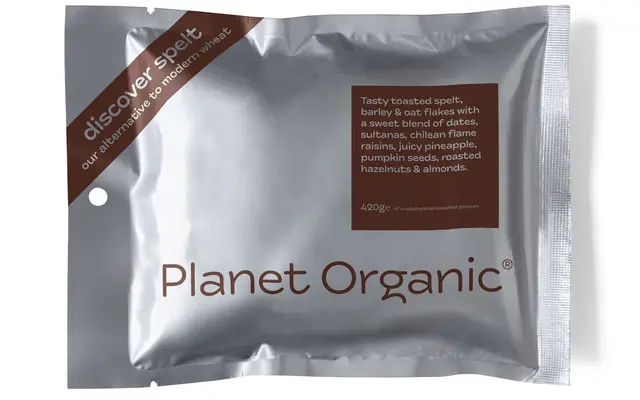
New Farm
Newlyn · Miles Newlyn, Ben Mitchell
New Farm specimen from Newlyn
A monospaced typeface with handwritten roots, built around springy stems, rounded terminals and wide proportions for a relaxed, upbeat character.
Designed by Miles Newlyn and Ben Mitchell for a client brief calling for something upbeat and unpretentious, New Farm grafts lively, handwritten shapes onto a typewriter-monospaced structure. Raindrop-shaped counters, rounded terminals and wide proportions give it a casual warmth that stops well short of novelty, with bounce calibrated so that letters settle into a regular rhythm. The family spans five weights from Thin to Bold and includes Newlyn's Accessibility Set for organisations with compliance requirements.
New Farm is built around a typewriter-monospaced grid but with handwritten, bouncy letterforms, wide proportions and rounded terminals, making it a humanist mono rather than a strict mechanical one.